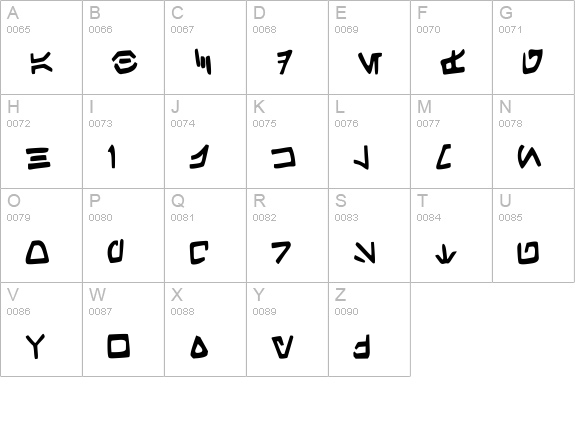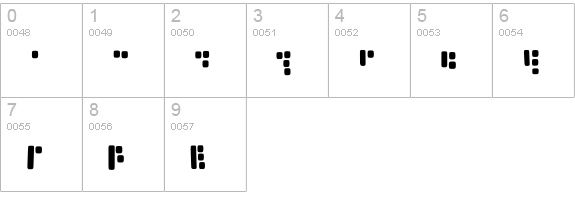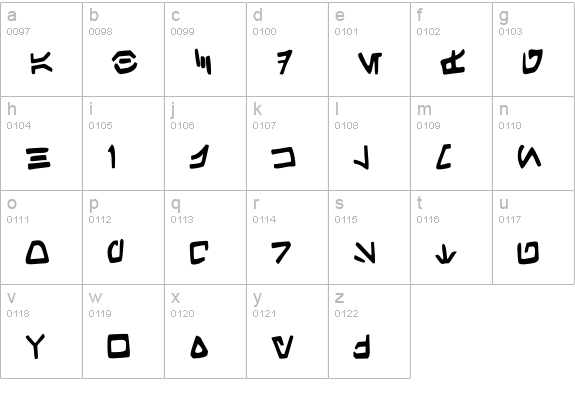
Aurek-Besh Hand Font Details
The Aurek-Besh Hand font is a beautifully crafted typeface that exudes a sense of creativity and uniqueness. Its hand-drawn style gives it a personal touch, making it perfect for projects that require a human element. The flowing lines and intricate details of this font make it a versatile choice for a wide range of design applications. What sets the Aurek-Besh Hand font apart is not only its aesthetic appeal but also the fact that it is available for free. Yes, you read that right - this stunning font can be downloaded at no cost from FontsMarket.com. Whether you're working on a personal project or a professional design, having access to such a high-quality font for free is truly a gift. With the Aurek-Besh Hand font, you can add a touch of artistry and personality to your designs without breaking the bank. So don't miss out on this opportunity to enhance your creative work with a font that is not only beautiful but also freely available for download.